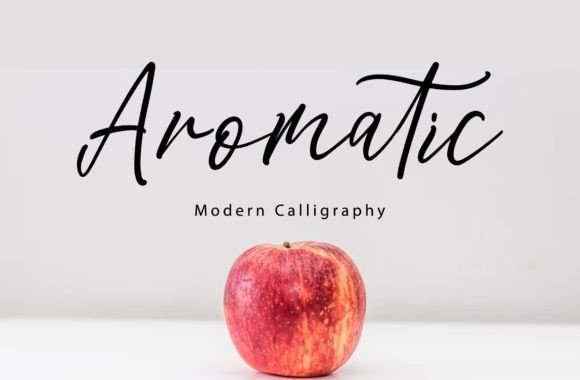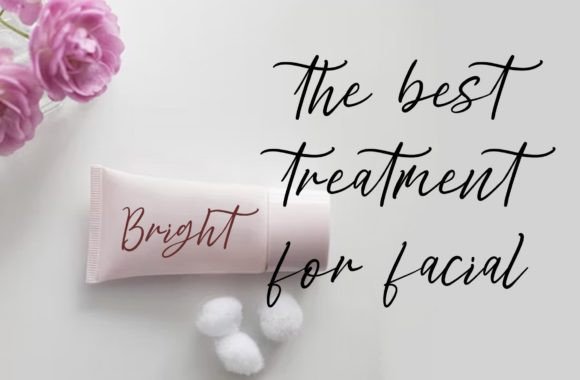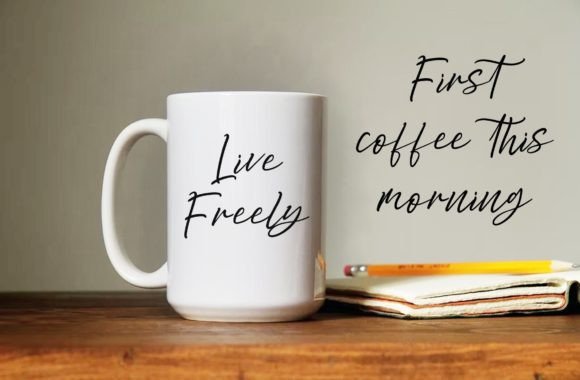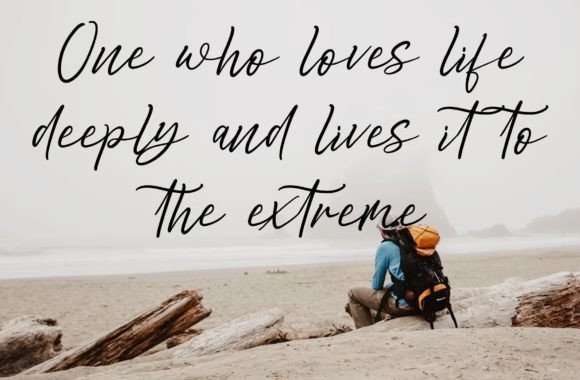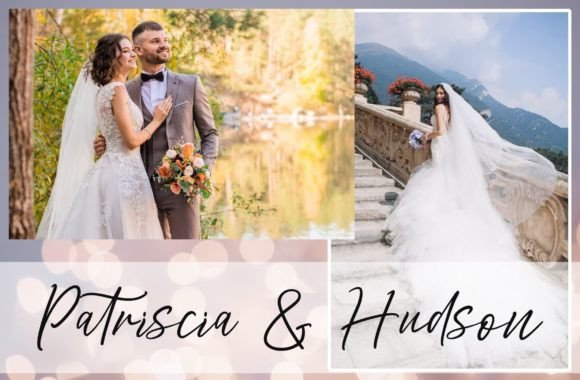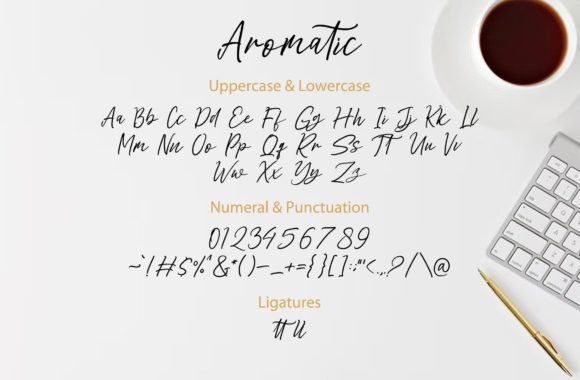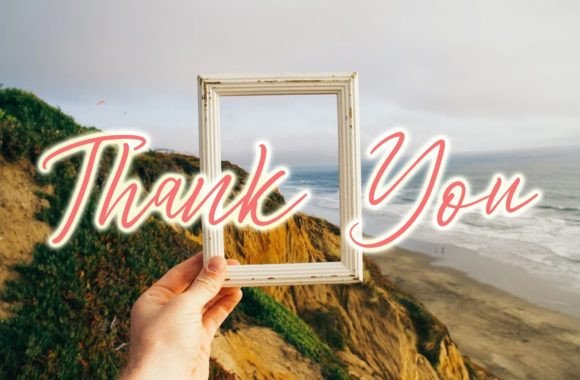
Aromatic Font
About Aromatic Font
“Aromatic: Where Sweetness Meets Elegance in Calligraphy Script
Introducing Aromatic, a sweet calligraphy script font that effortlessly blends sweetness with timeless elegance. Designed to add a touch of sophistication to your projects, Aromatic stands out as the perfect typeface for a wide range of applications, including advertisements, branding, graphic design, quotes, wedding invitations, logos, and much more. Its delicate curves and graceful letterforms make it a versatile choice for any creative endeavor, enhancing your designs with a sense of refined charm and stylish allure.
The beauty of Aromatic lies in its ability to balance sweetness and elegance seamlessly. Its calligraphy script style exudes a sense of grace and sophistication, making it an ideal choice for projects that demand a touch of artistic flair. Imagine your wedding invitations adorned with Aromatic’s elegant letterforms, capturing the essence of romance and timeless beauty. Visualize your branding materials featuring its sweet calligraphy, creating a memorable and captivating brand identity. With Aromatic, your designs come to life with a delightful blend of sweetness and elegance that captivates the eye and resonates with the heart.
One of Aromatic’s standout features is its versatility. Its sweet calligraphy script adapts effortlessly to various design applications, allowing you to explore endless creative possibilities. Whether you’re crafting captivating advertisements, elegant logos, or heartfelt quotes, Aromatic adds a touch of sophistication and sweetness that elevates your creations. Let your designs exude warmth and charm, and watch as your projects leave a lasting impression on your audience.
Moreover, Aromatic is more than just a font; it’s an embodiment of sweetness and elegance in calligraphy script. Its delicate curves and graceful lines resonate with individuals who appreciate the beauty of artistic design, making it a favorite among designers and enthusiasts seeking a font that effortlessly combines sweetness and timeless elegance. Aromatic becomes a symbol of your creativity, allowing you to create designs that not only catch the eye but also evoke a sense of delightful sweetness and refined charm.
In a world where sweetness meets elegance in calligraphy script, Aromatic helps you make a statement. It speaks the language of refined beauty and timeless allure, resonating with those who appreciate the beauty of artistic expression and sweet charm. Whether you’re designing invitations, branding, or advertisements, Aromatic becomes your trusted companion, guiding you toward design excellence.
So, why settle for ordinary when you can embrace the extraordinary with Aromatic? Let this sweet calligraphy script font be the canvas for your creative expressions, and watch as your projects come to life with delightful sweetness, timeless elegance, and refined charm. Let your creativity flow, and let Aromatic be the brushstroke that paints your ideas into visually captivating masterpieces, leaving a lasting impression on the hearts of your audience. Elevate your designs with Aromatic, where sweetness meets elegance in calligraphy script, and transform your creations into works of art that resonate with the authentic spirit of delightful creativity.”